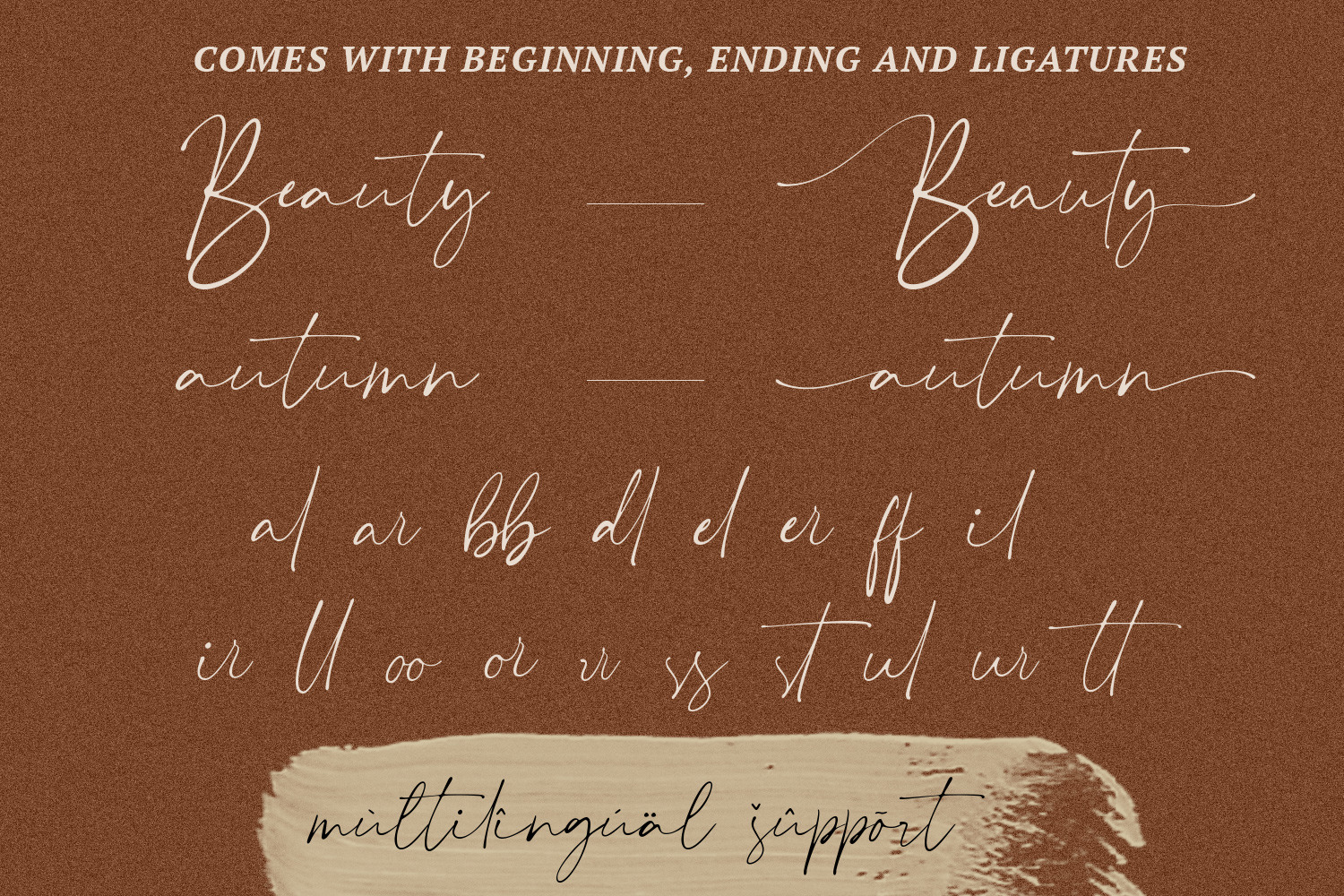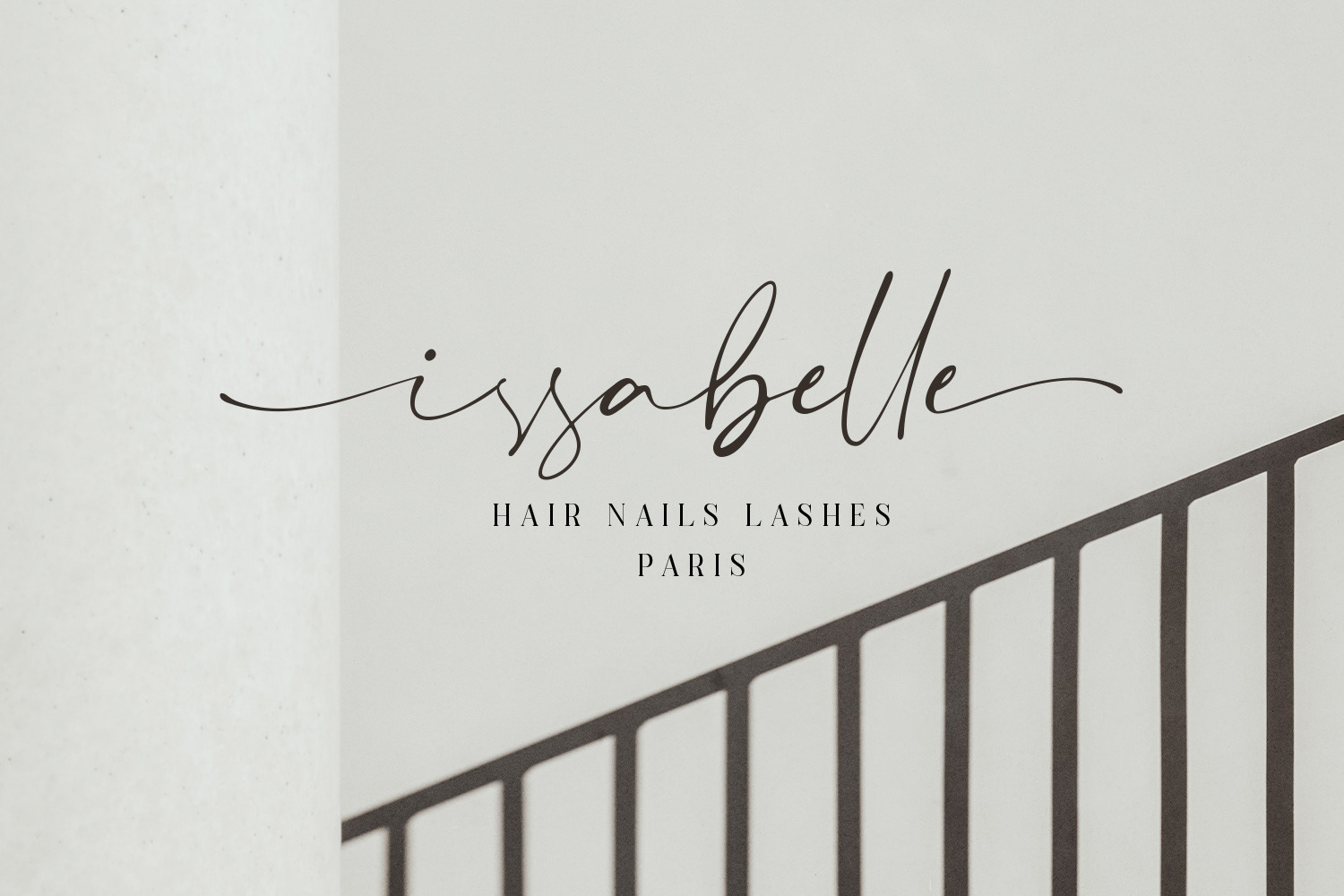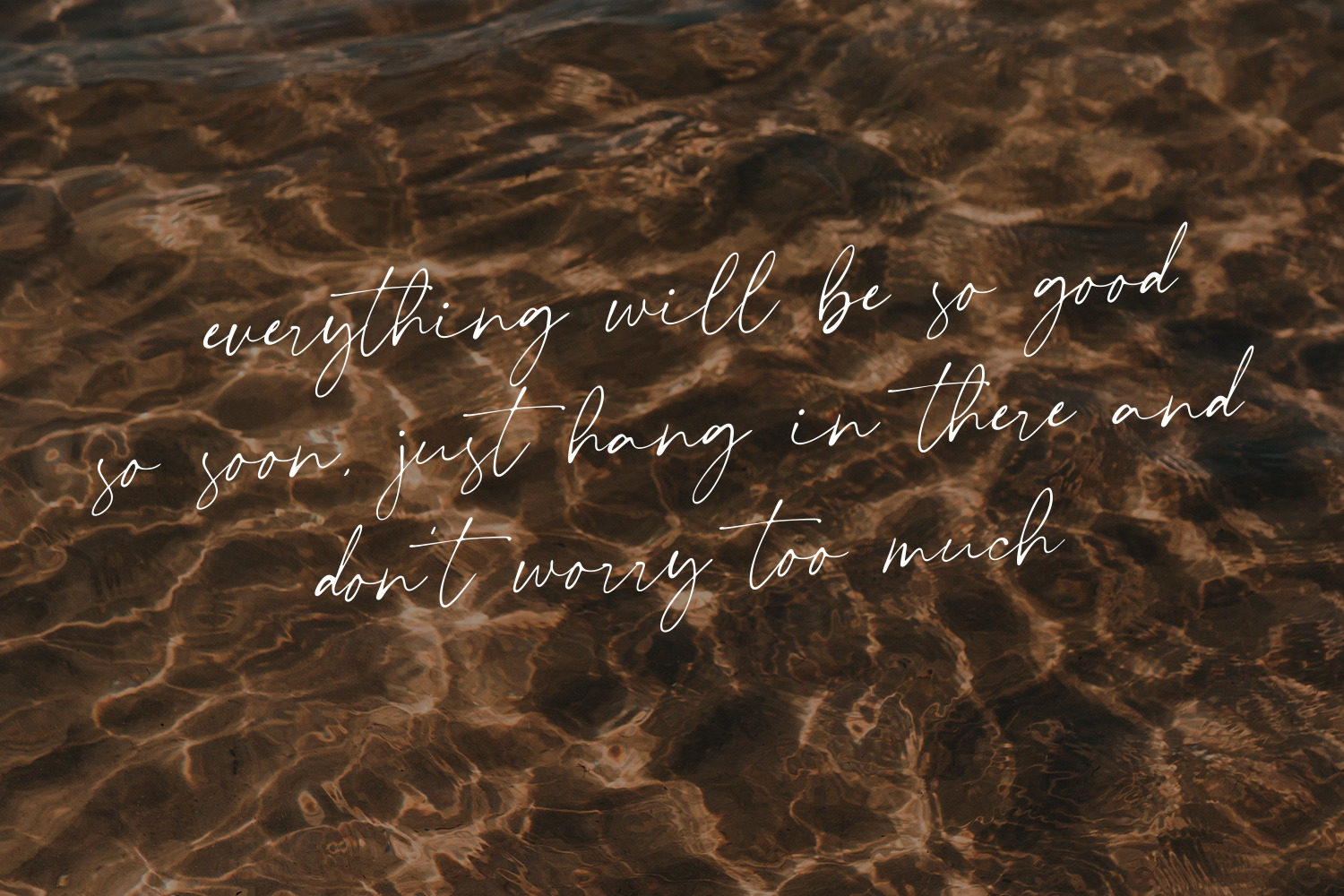
Plumrose Signature Script Font
Plumrose Signature Script Font is an adorable, chic, and visual elegance signature script font. Comes with alternatives, ligatures, multilingual suport. Perfect for editorial projects, branding, weddings, social media, product design, stationery, advertising other romantic projects or simply as a stylish text overlay to any background image.
Features :
Uppercase and Lowercase
Stylistic Alternates & Ligatures
Numerals & Punctuation
Multilanguange